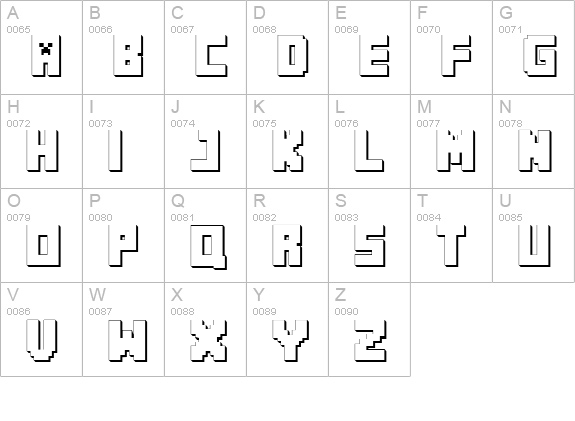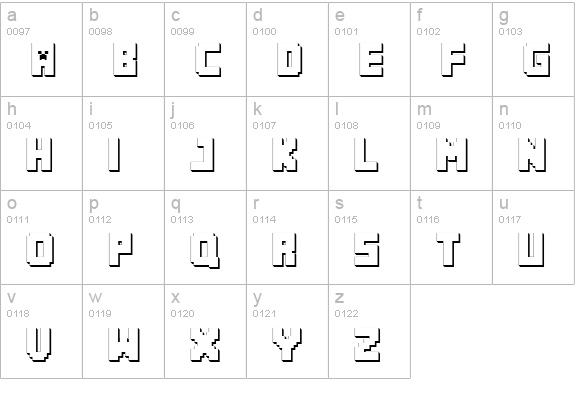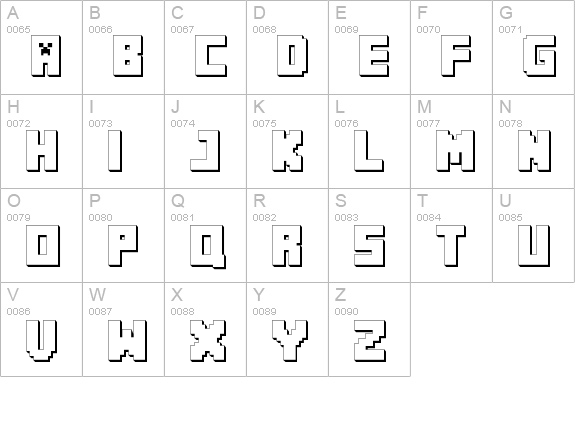
The MINECRAFT PE font is a remarkable addition to any Minecraft enthusiast's collection. This unique and captivating font brings the beloved pixelated aesthetic of the game to life, making it the perfect choice for Minecraft-related projects, gaming websites, or even personal designs. With its blocky and playful appearance, the MINECRAFT PE font effortlessly captures the essence of the game, instantly transporting users back to the virtual world they love. Each character is meticulously crafted, staying true to the iconic Minecraft style and ensuring that every word written in this font is instantly recognizable to fans. One of the most remarkable aspects of the MINECRAFT PE font is that it is freely available to download at FontsMarket.com. This means that Minecraft enthusiasts and designers alike can easily access this font without any cost, making it an incredibly valuable resource. Whether you're a seasoned Minecraft player looking to add a touch of authenticity to your creations or a designer seeking a font that instantly conveys the spirit of Minecraft, the MINECRAFT PE font is an absolute must-have. With its versatility and availability, the MINECRAFT PE font is the ideal choice for a wide range of projects. Whether you're designing a Minecraft-themed birthday invitation, creating a gaming website, or simply adding a touch of nostalgia to your personal designs, this font will undoubtedly elevate your work to the next level. Don't miss out on this incredible opportunity to download the MINECRAFT PE font for free at FontsMarket.com and unlock a world of creative possibilities.